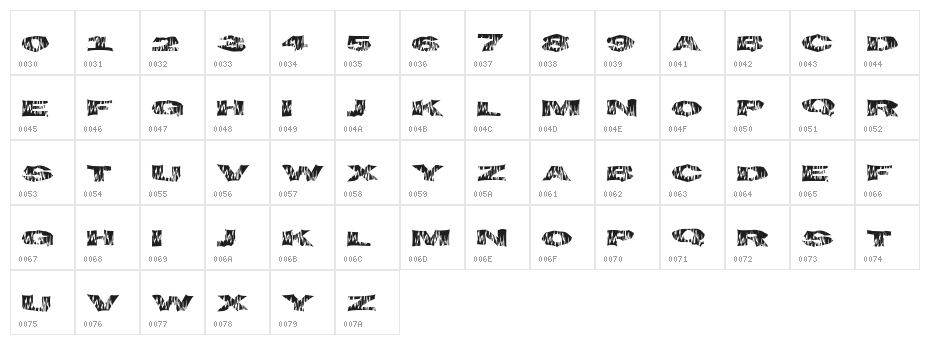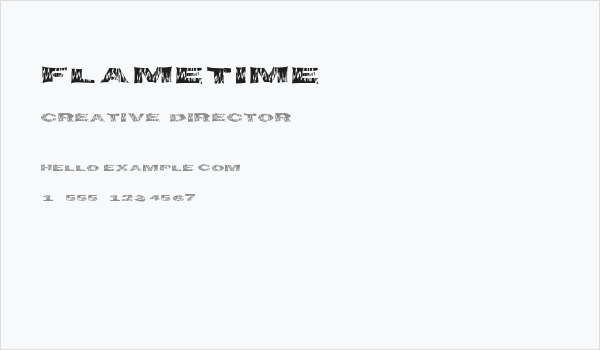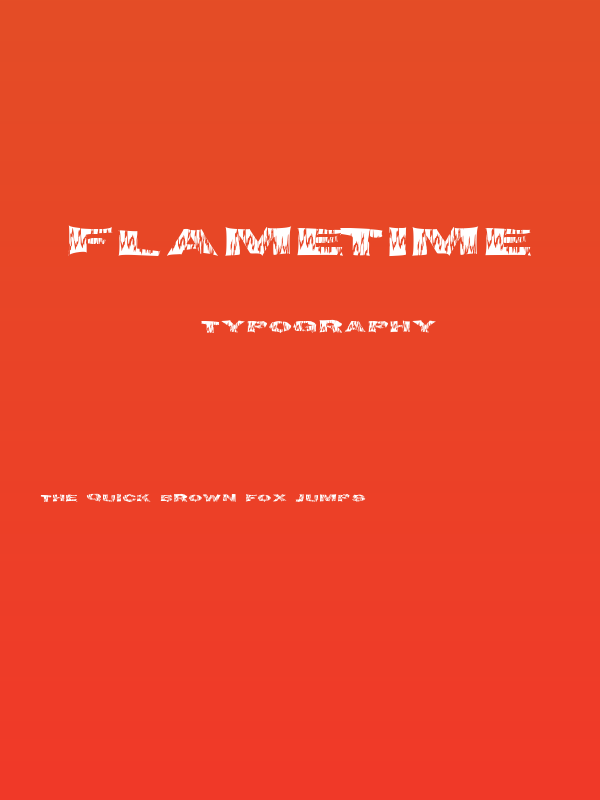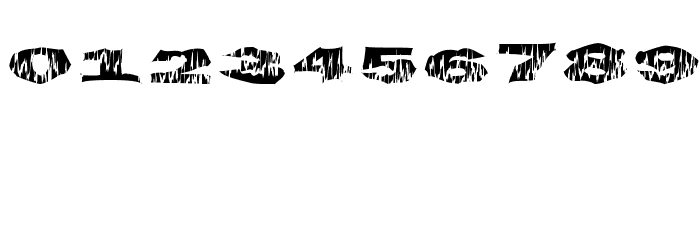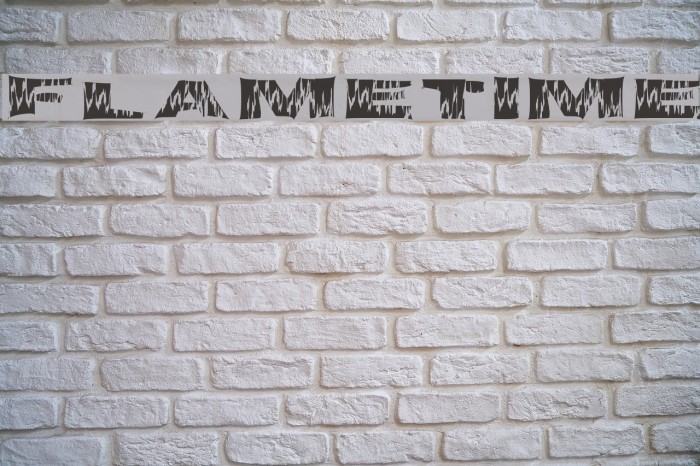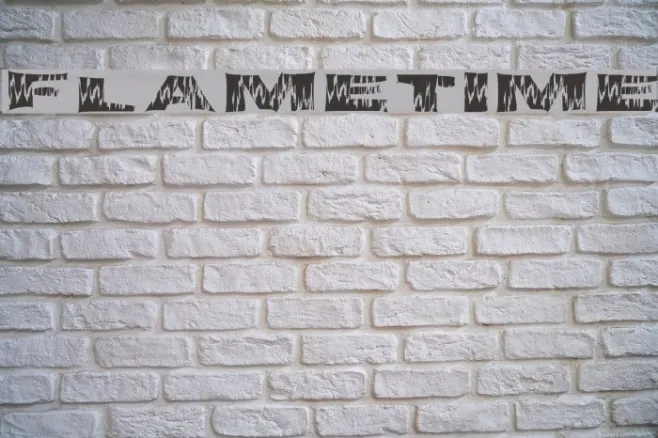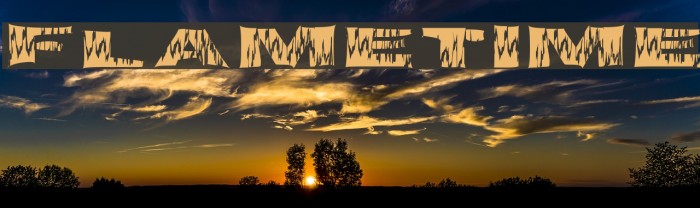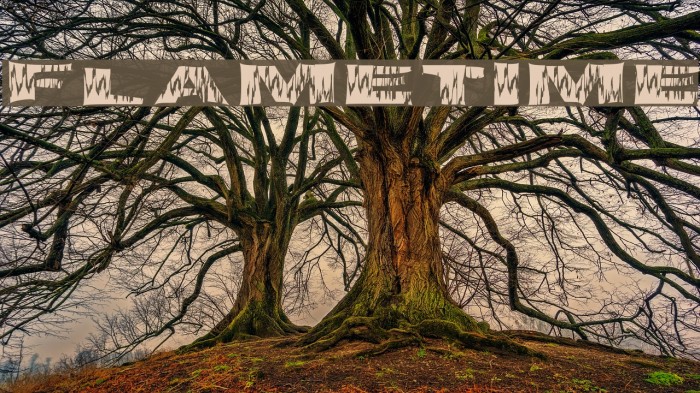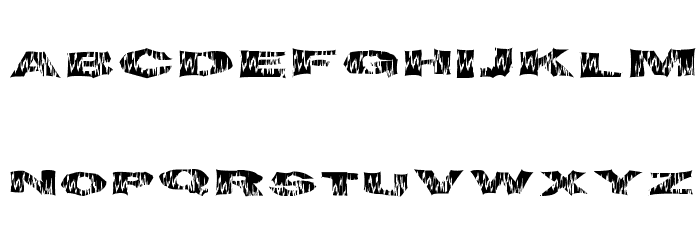
FlameTime Font
FlameTime Description
This font features a bold, dynamic design with a flame-like texture that gives each character a fiery appearance. The uppercase and lowercase letters, along with numbers, are crafted with sharp edges and irregular patterns that mimic the flickering of flames. This unique style creates a sense of movement and energy, making it ideal for attention-grabbing designs. The font's decorative nature is emphasized by its high contrast between thick and thin strokes, enhancing its visual impact. The character spacing is relatively tight, contributing to its compact and intense look.
| Proposed Projects | Ideal for projects requiring a fiery, energetic theme such as event posters, music album covers, or branding for dynamic products. |